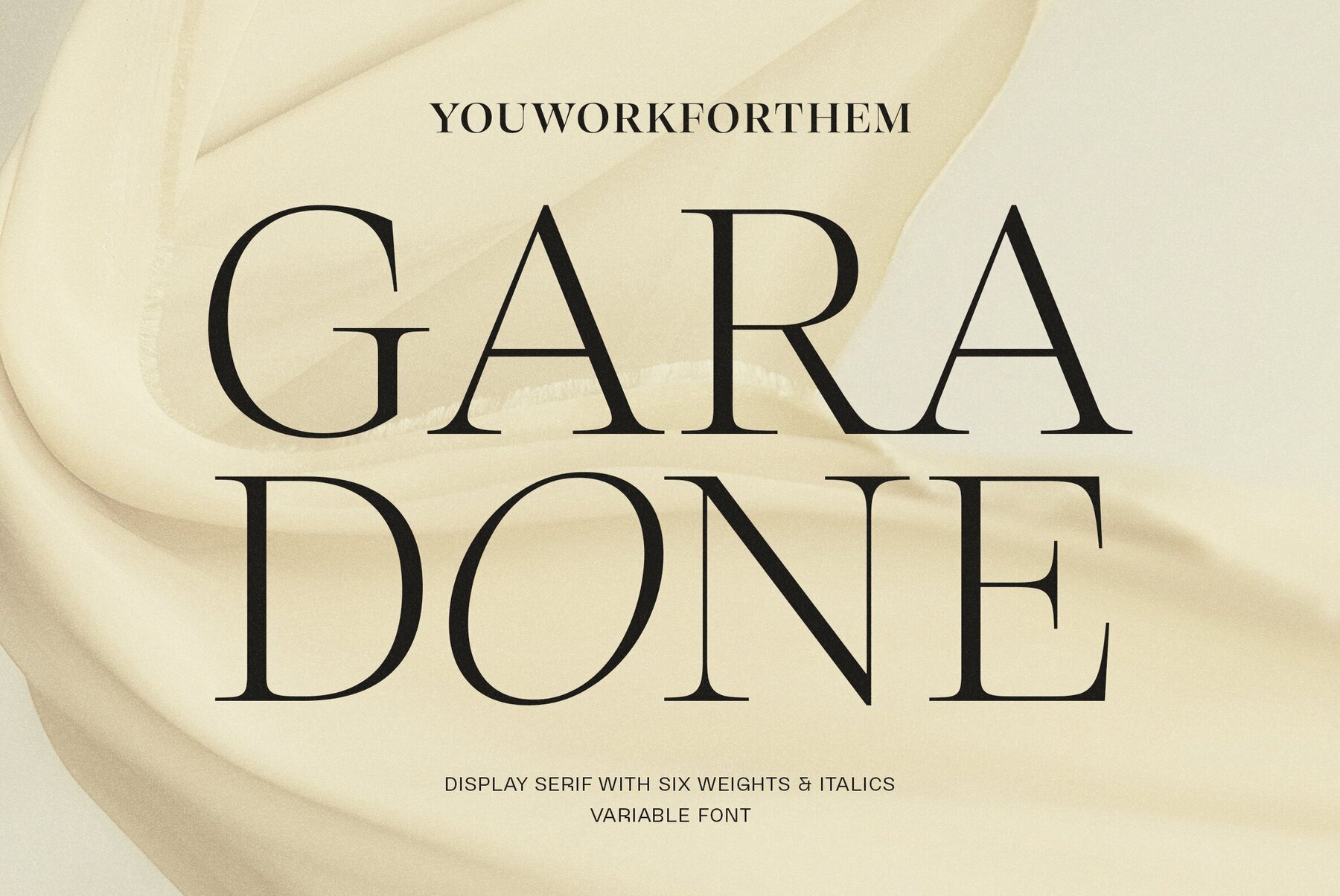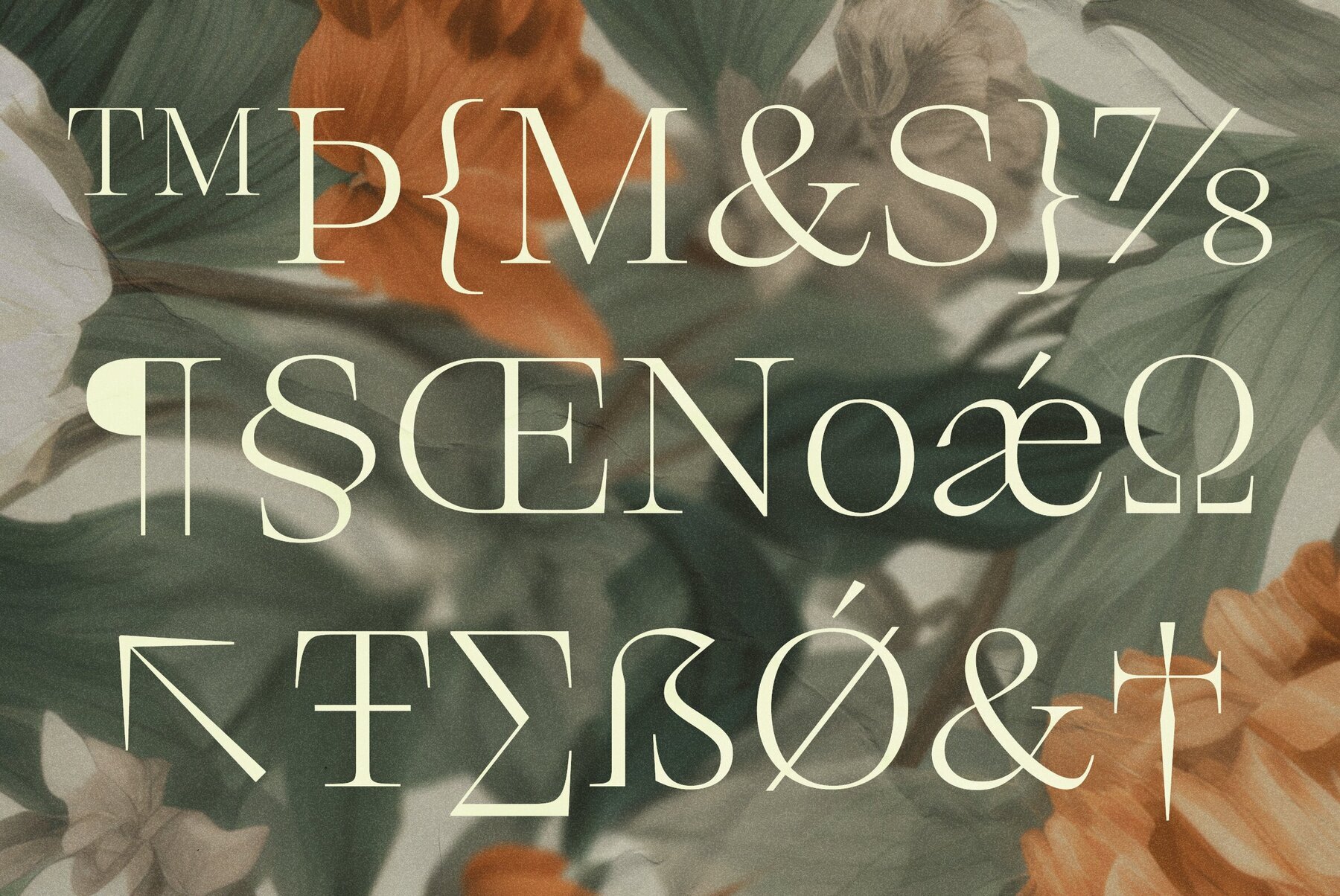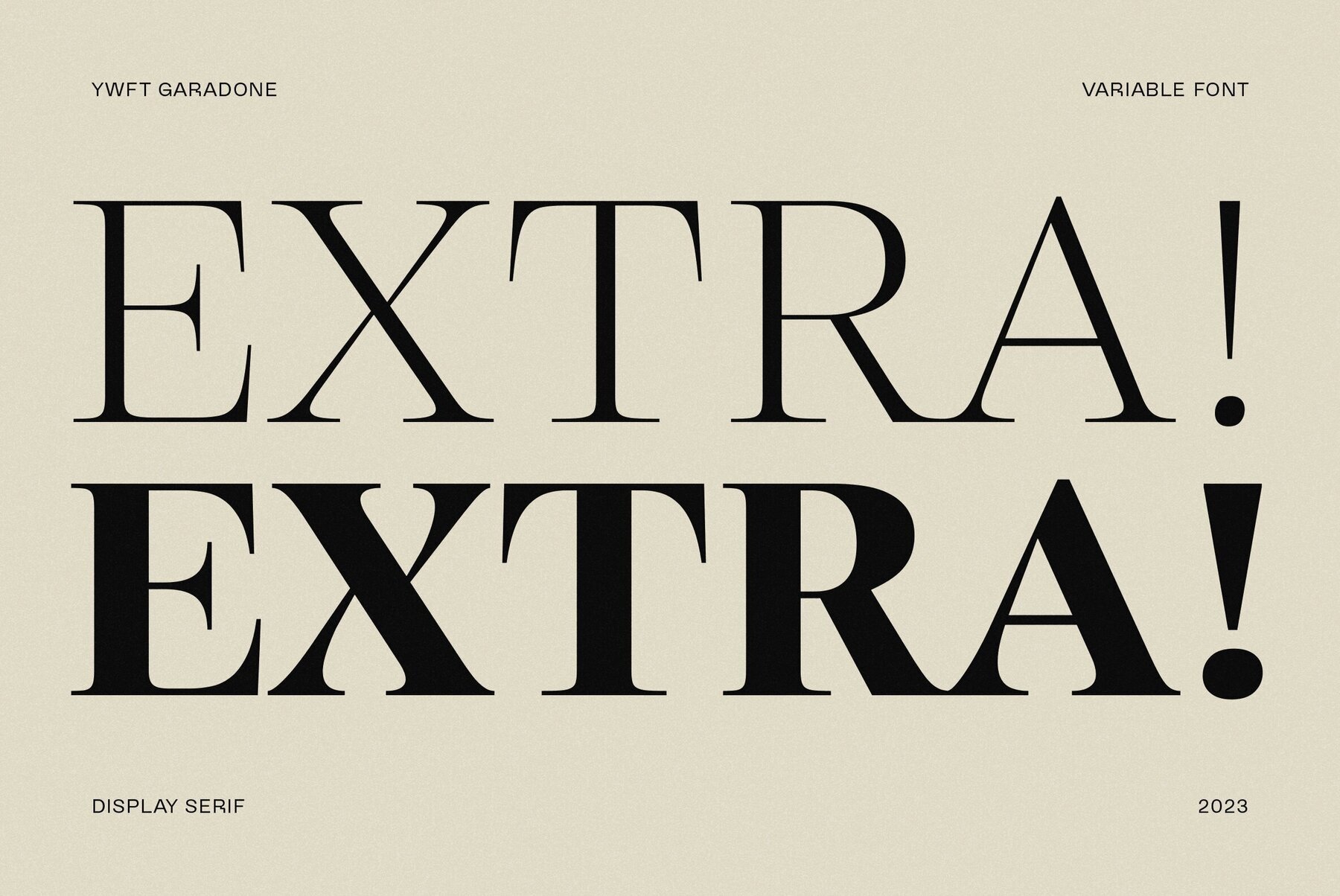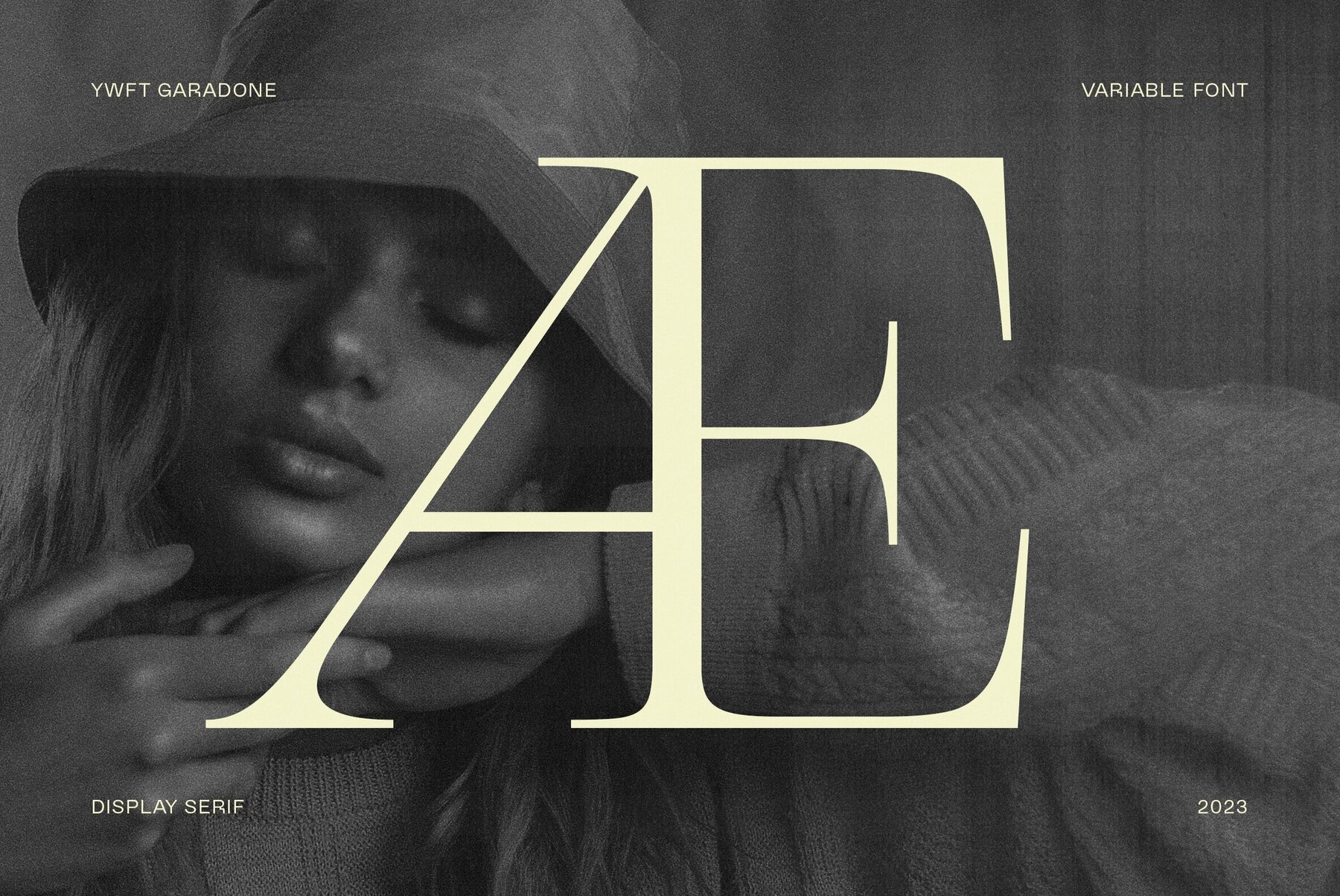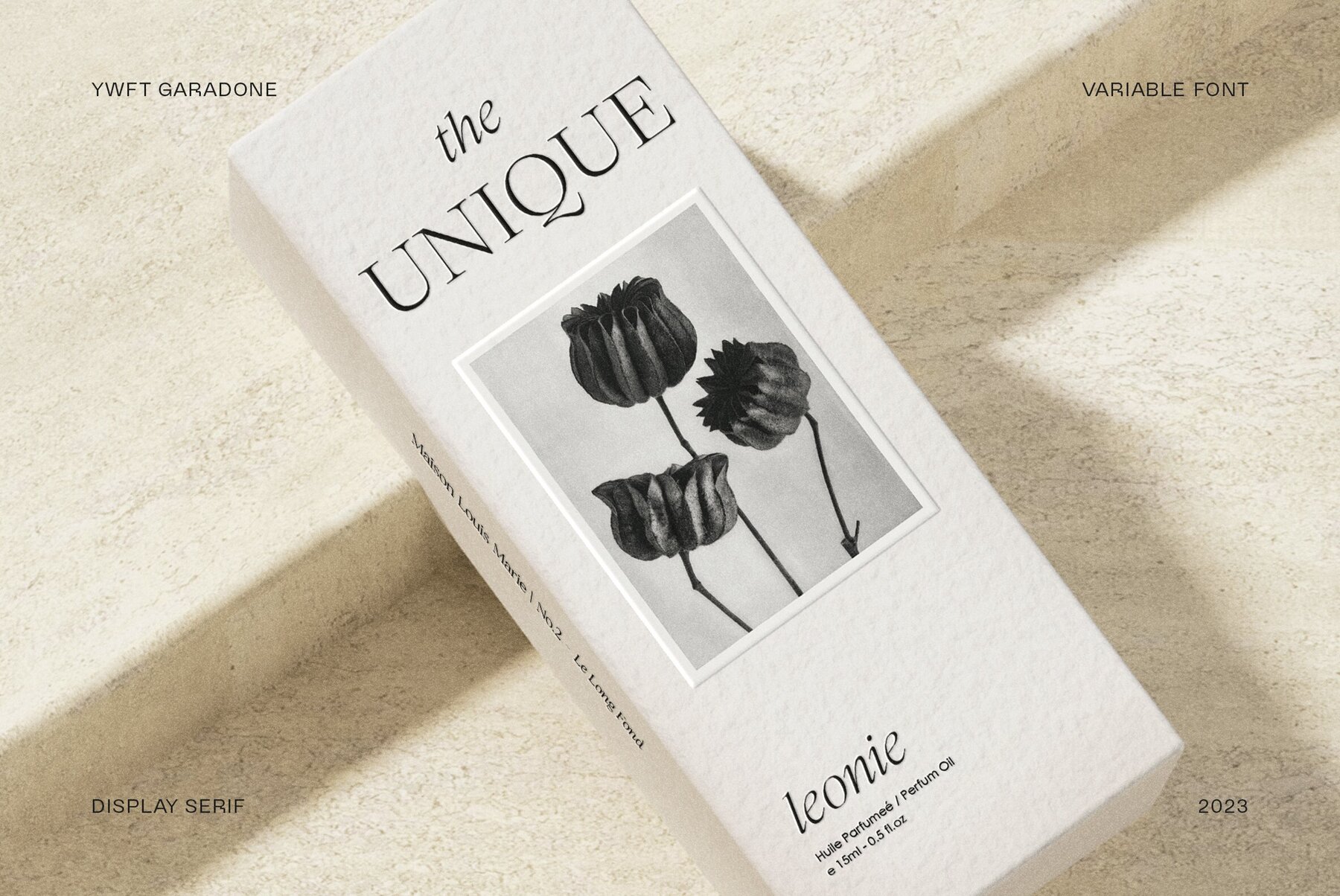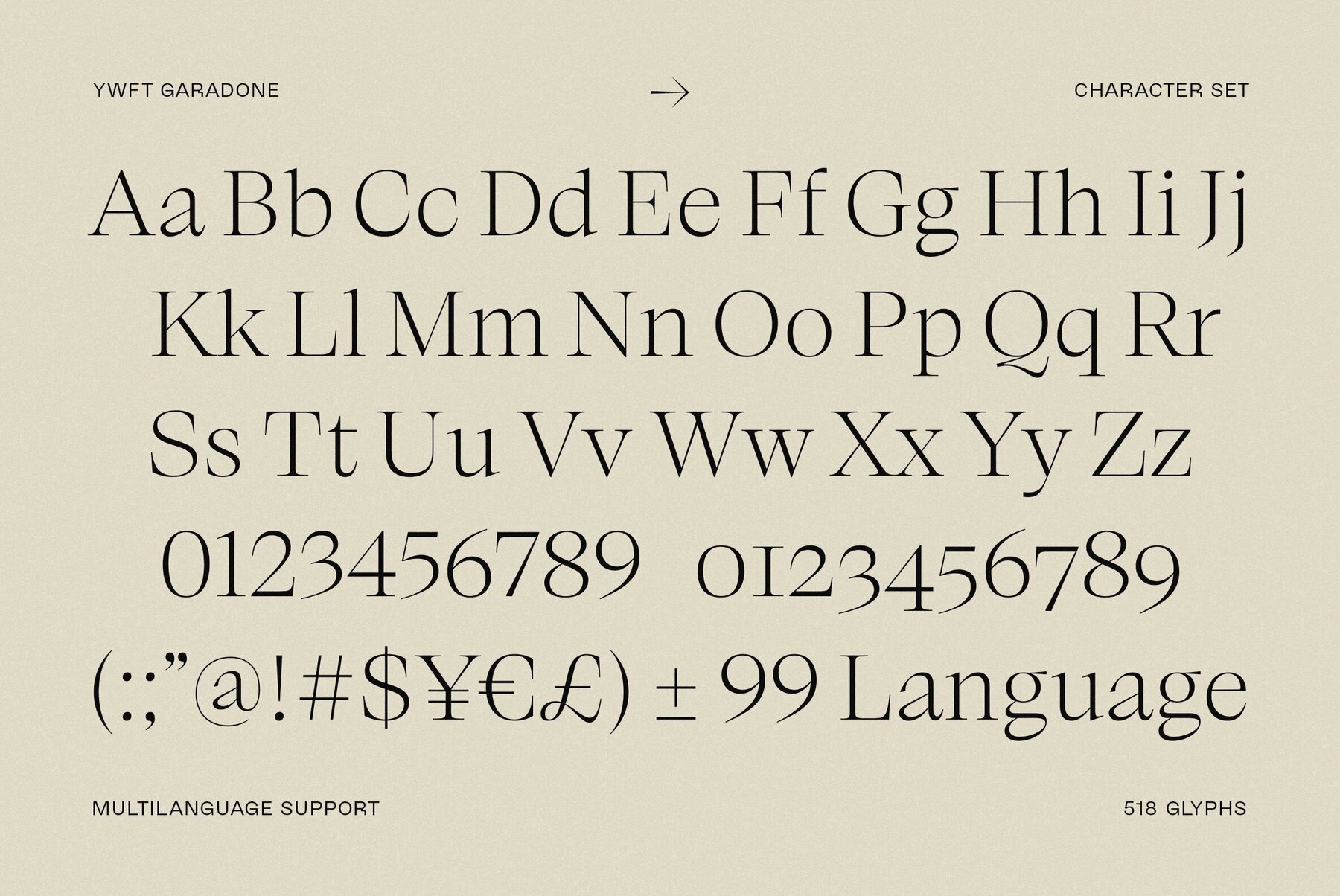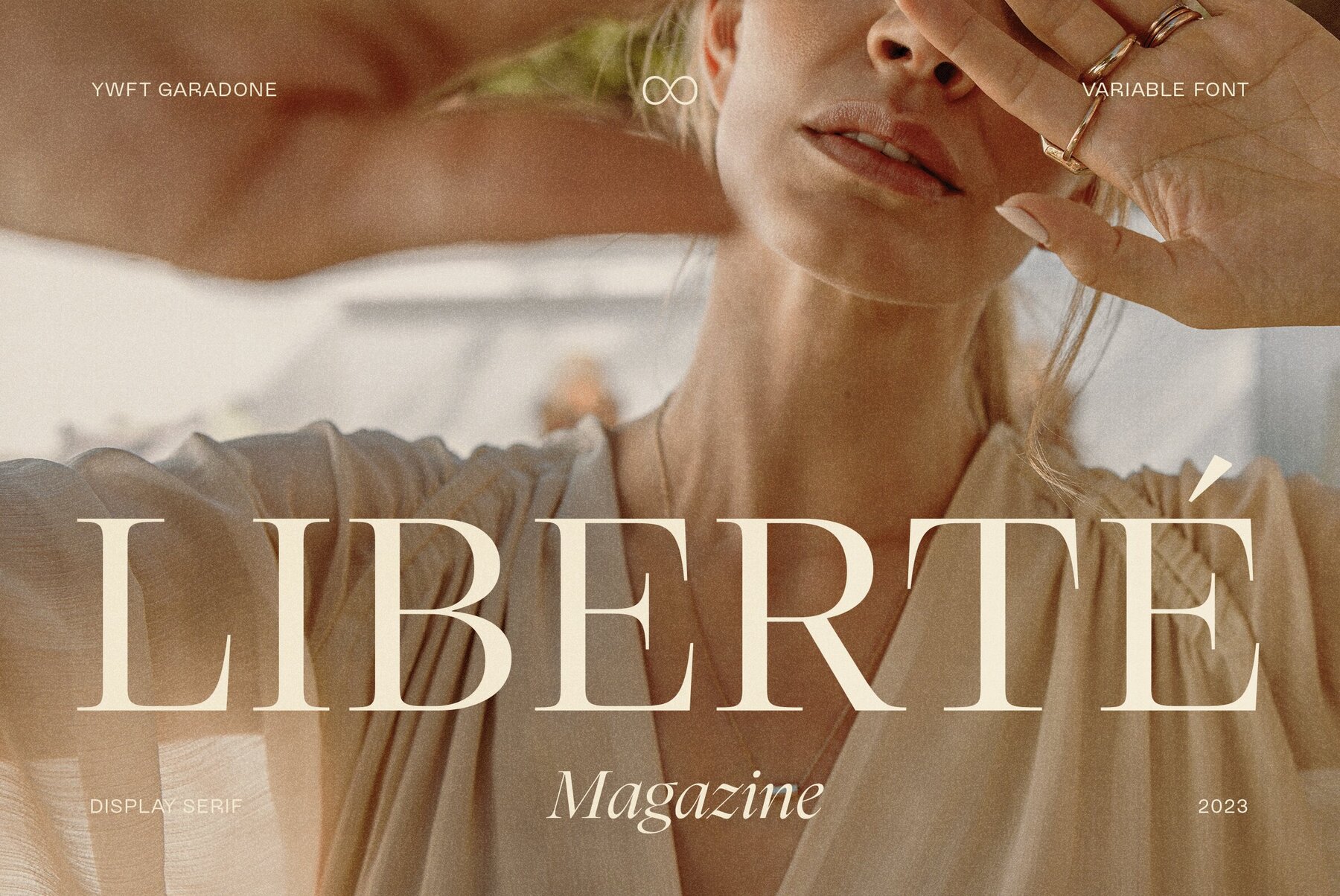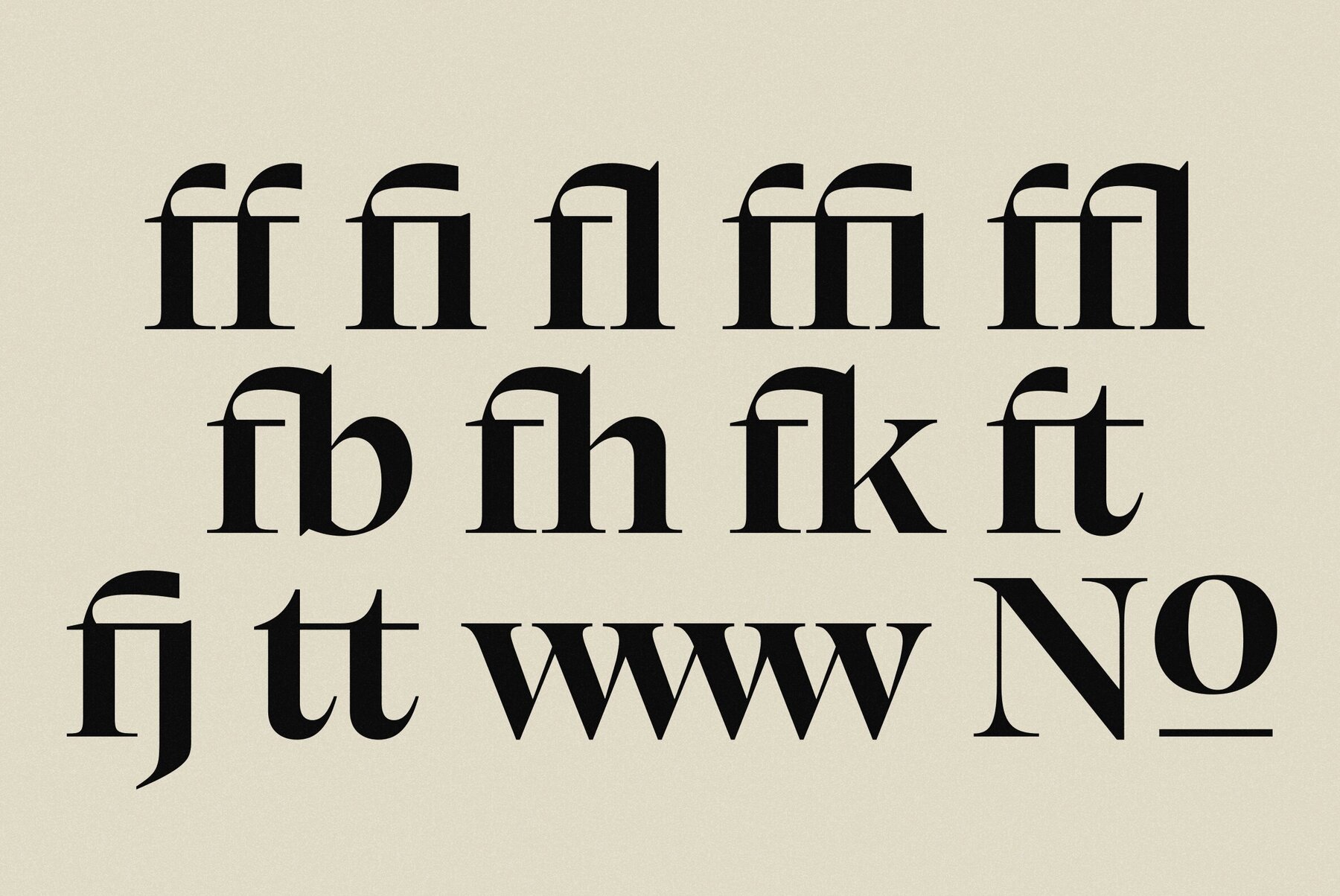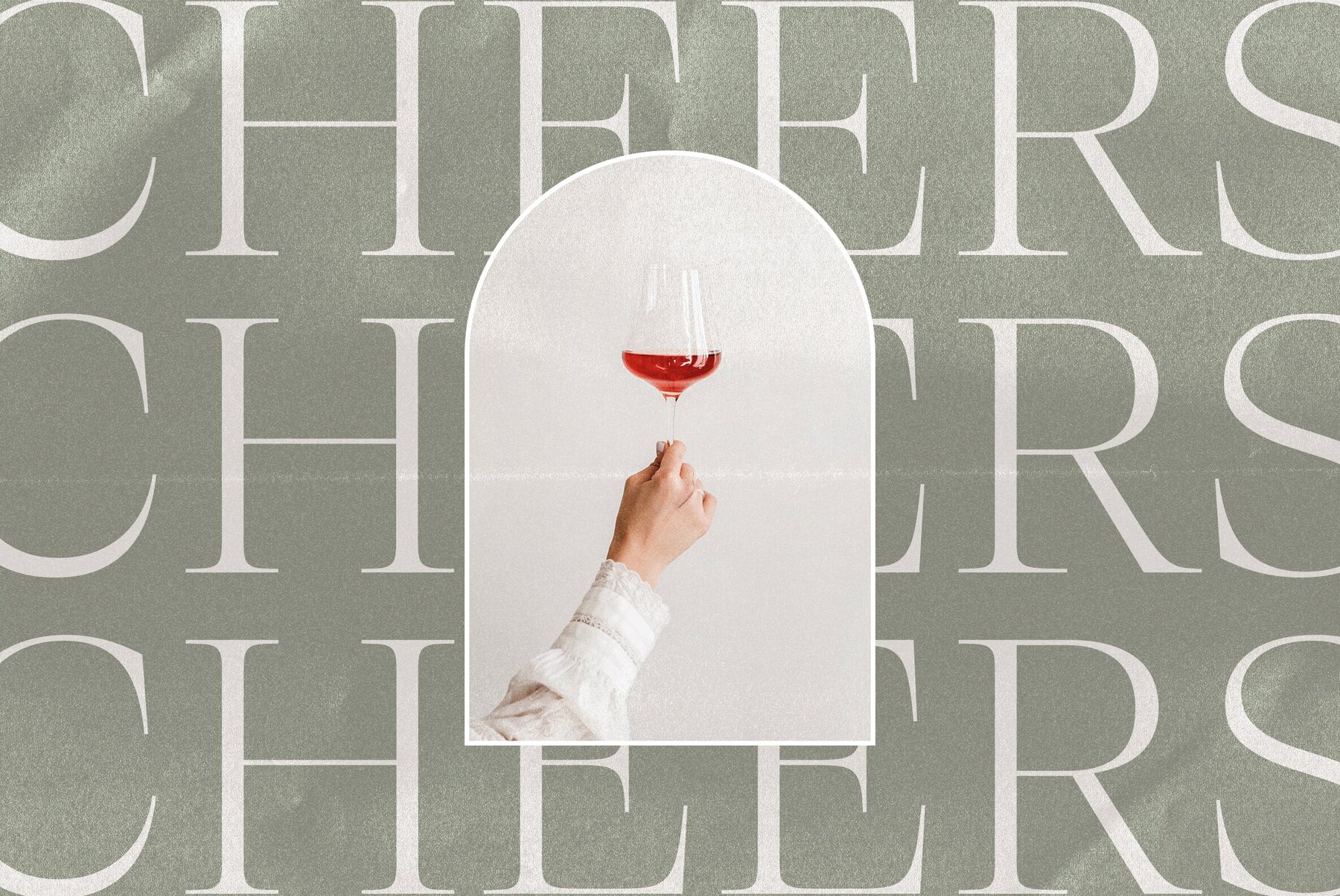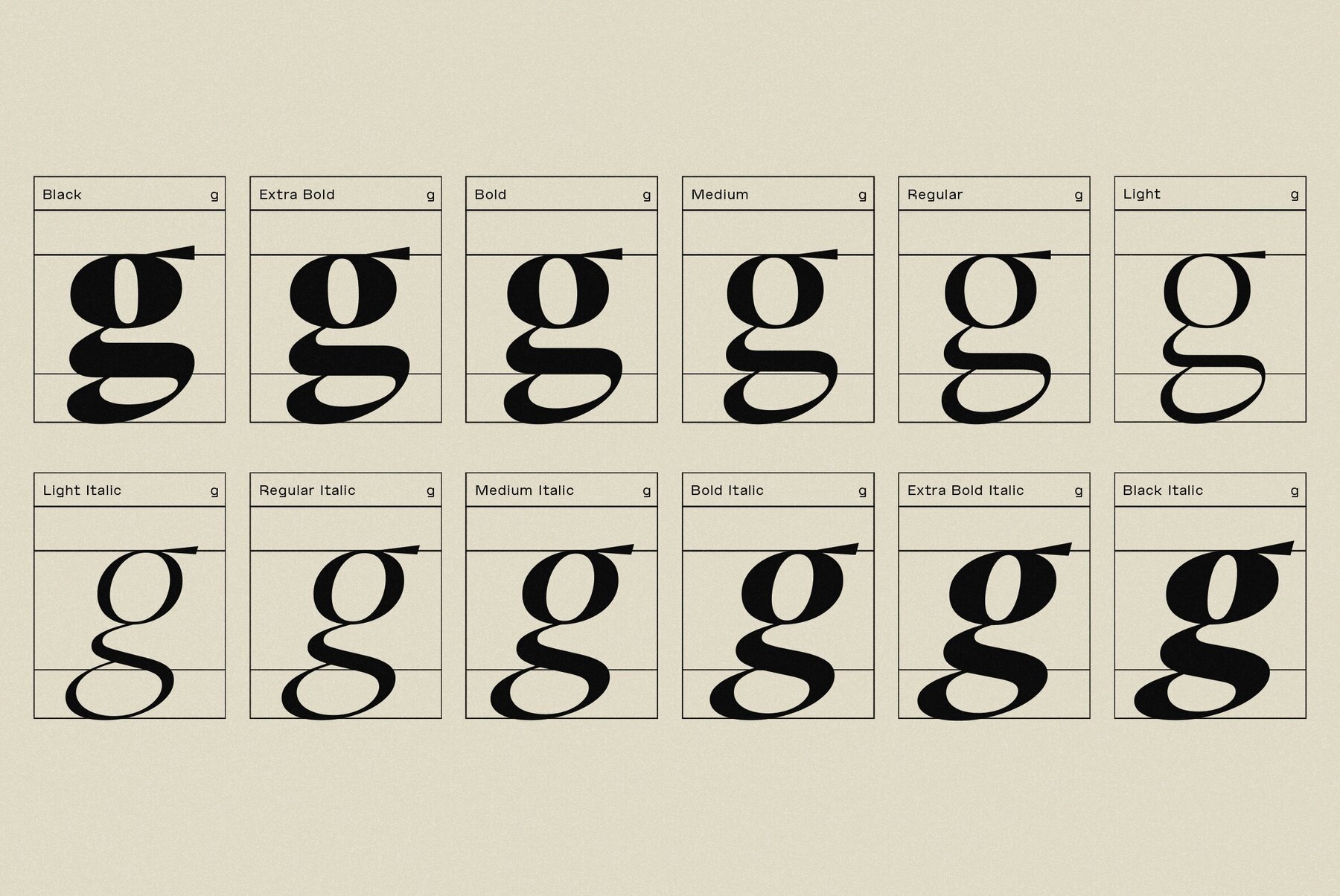
YWFT Garadone Font
YWFT Garadone is a unique typeface that synthesizes the enduring grace of Garamond with the sharp precision of Didone. Published by YouWorkForThem, this font not only pays homage to its classical predecessors but also adds a contemporary touch that appeals to modern sensibilities. With an array of six weights that range from the ethereal light to the assertively bold, YWFT Garadone is a chameleon in the type world. Each weight comes with its corresponding italic variant, providing an added layer of expressiveness to your design palette. For those who require even more flexibility, we offer a variable font option that opens the door to limitless customization. If you've been scouring the market for a modern serif or are intrigued by the enduring popularity of Garamond and Didone fonts, your search ends here. YWFT Garadone offers an affordable yet high-quality typographic solution that is tailormade for today's digital landscape. Perfect for editorial projects, sophisticated branding, and elegant web designs, this typeface is your go-to for projects that demand both versatility and style. Additional products used for slideshow images:The Evolution of Classic Type: YWFT Garadone
Versatility Meets Elegance: Weights and Styles
Target Your Design Needs: Modern Serif for Today's Designer